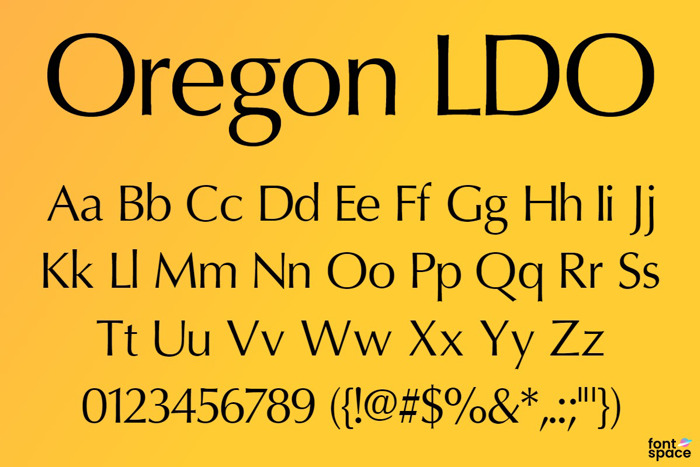
Oregon LDO Font
About Oregon LDO Font
almost 11 years agoEssentially a stolen font; this is the same as Optima.
10 years ago@cornstorch You can't "steal" a font design. At least not under U.S. law. You can copyright digital media (i.e. files) but not a typeface design.